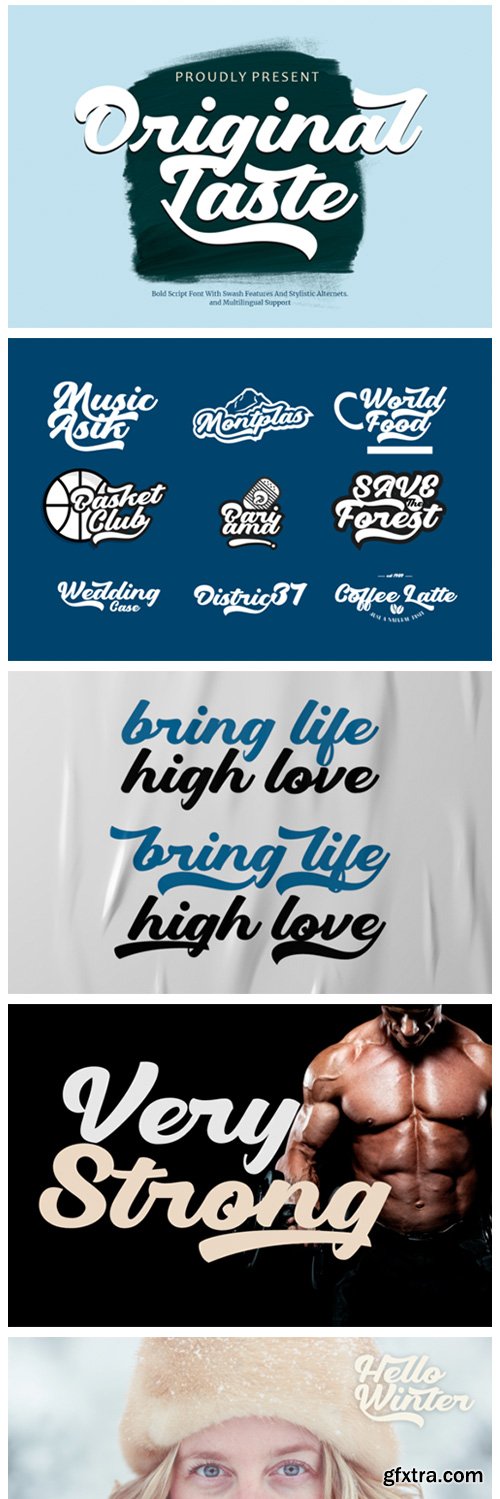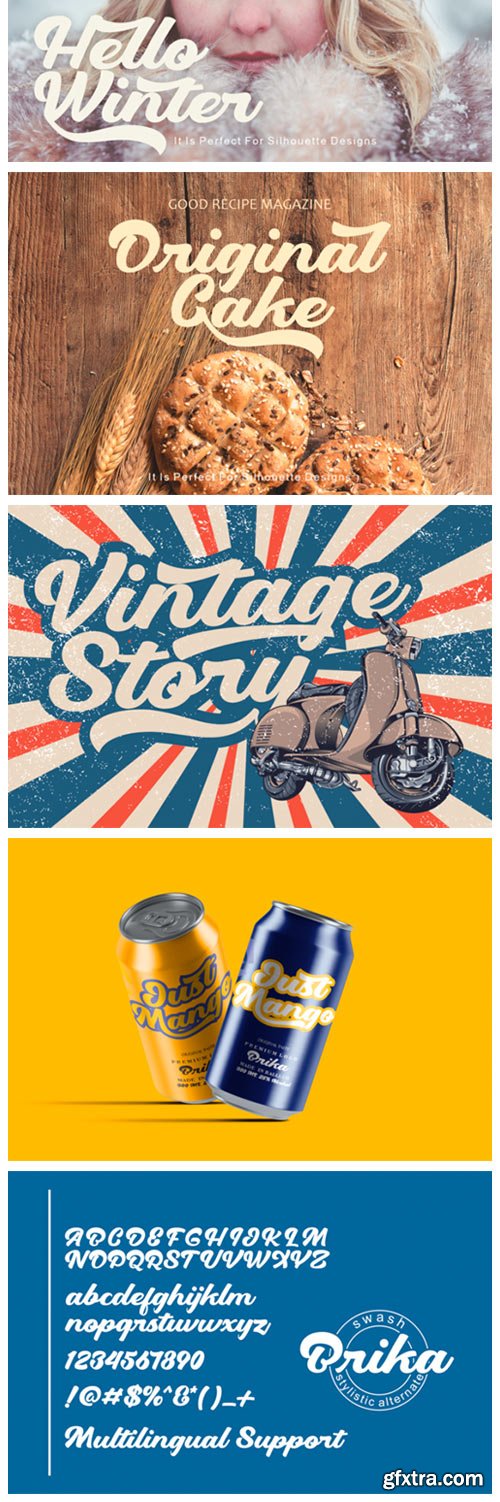
Original Taste Font
Original Taste is a retro styled and bold handwritten font, crafted to give your headlines and logotype projects a stylish touch. This font reads as strong, confident, and dynamic and can add tons of nostalgic character to your designs. This font is PUA encoded which means you can access all of the glyphs and swashes with ease!